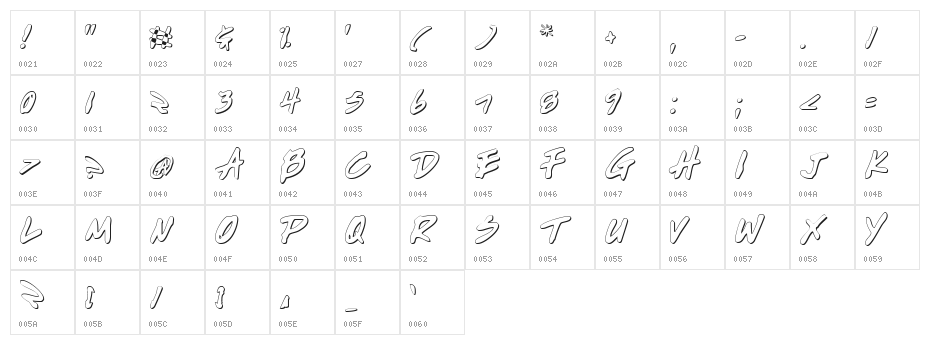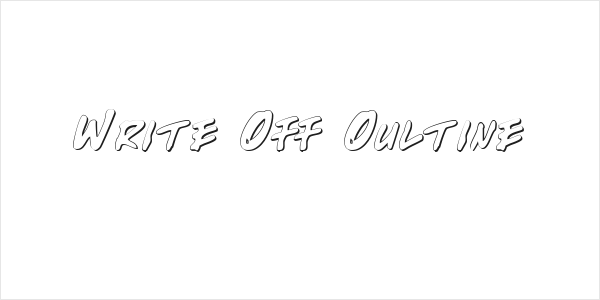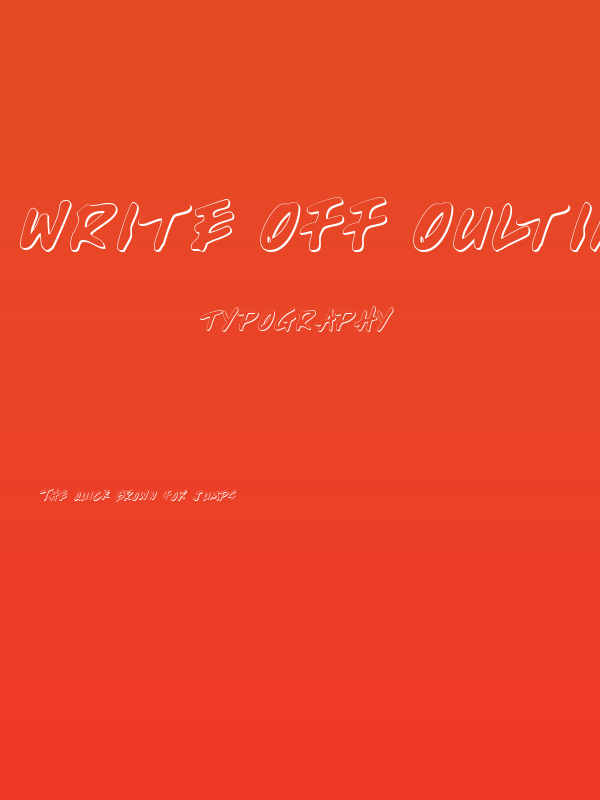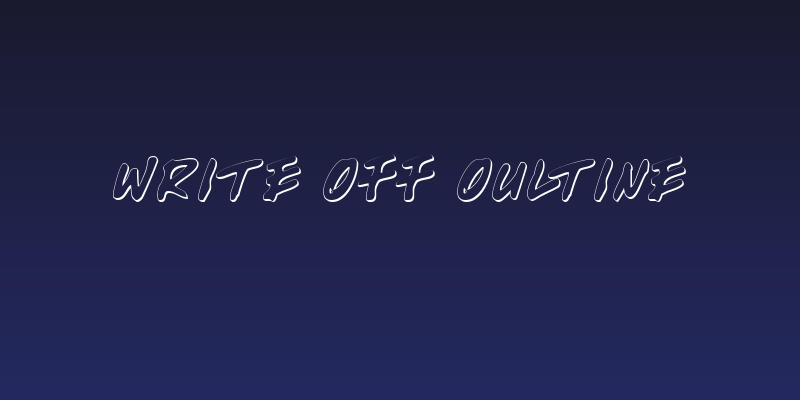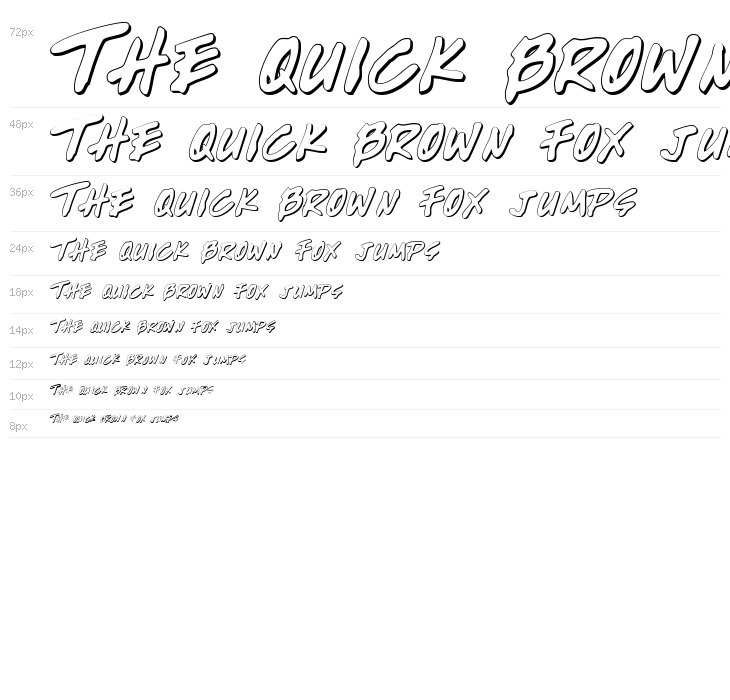
Write Off Oultine Font
Write Off Oultine Description
This font features a bold, dynamic script style with a playful and energetic feel. The characters are outlined, giving them a three-dimensional appearance that stands out. The strokes are smooth and fluid, reminiscent of handwriting, yet with a structured and consistent form. The uppercase and lowercase letters maintain a cohesive style, with rounded edges and a slight slant, adding to the casual, informal vibe. Numbers and special characters follow the same design principles, ensuring uniformity across all glyphs. The font's outline effect adds depth, making it suitable for eye-catching designs.
| Proposed Projects | Ideal for projects that require a fun and lively touch, such as greeting cards, posters, children's books, and playful branding. |